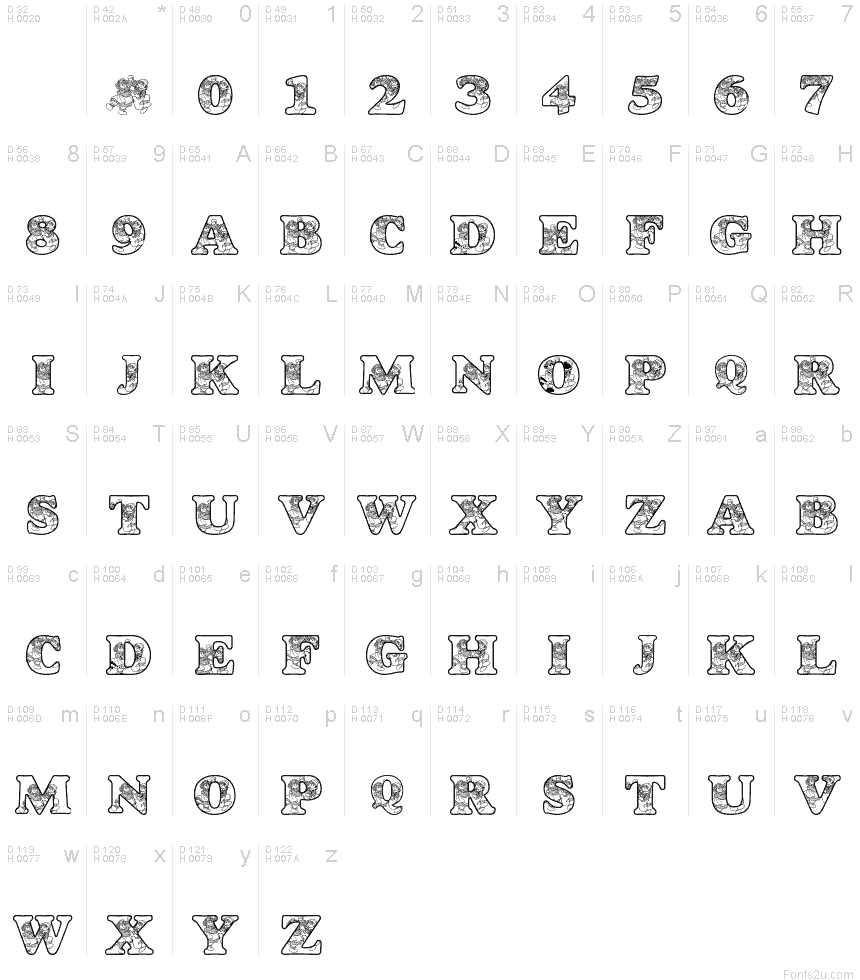
LMS Dancing Rag Dolls, designed by London Stokes for Candice, is a free illustrated slab serif display font built around playful doll scenes. Outlined capitals frame small figures, patterned clothing, and sketchy details that spill through and around the letters.
A children's toy brand could use it for packaging and shop graphics rooted in make-believe. It also suits storybook covers and craft-party invitations. The recurring dolls turn the lettering into a ready-made mascot system for a playful product identity.
By London Stokes. For Candice.